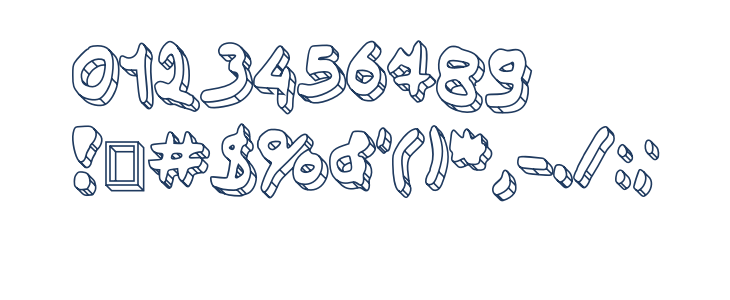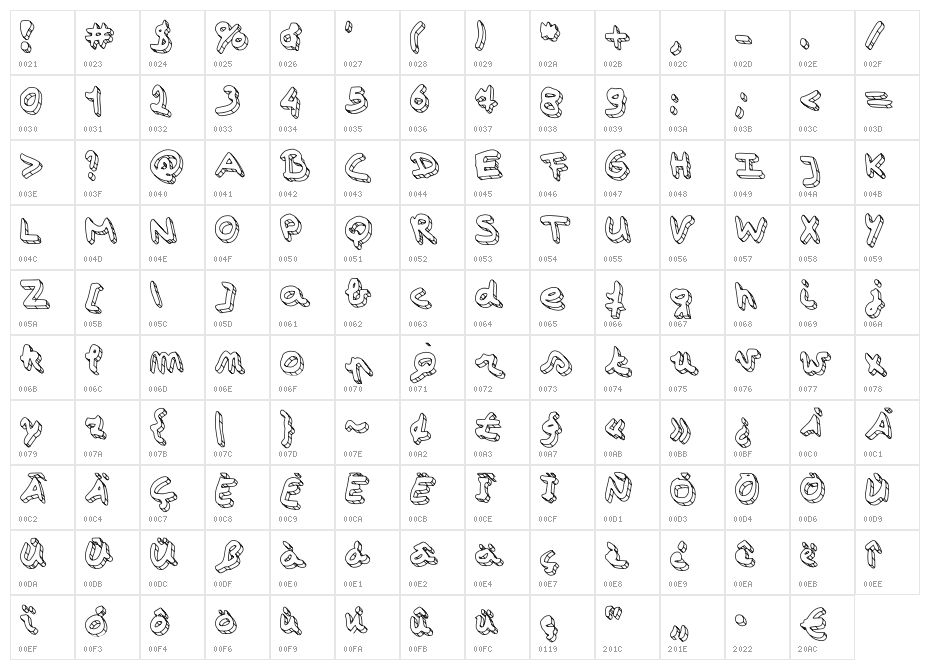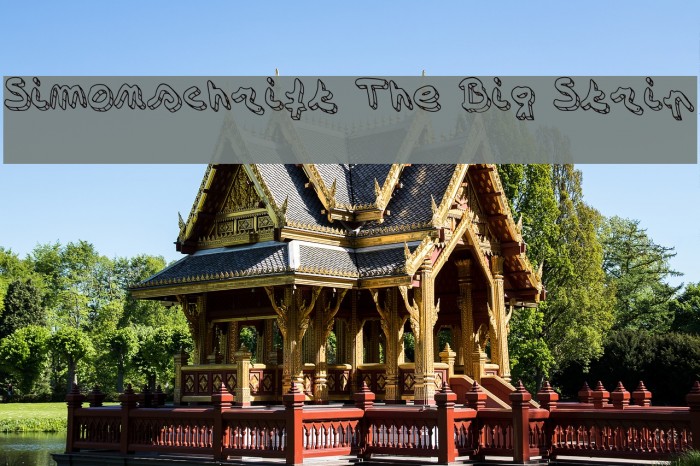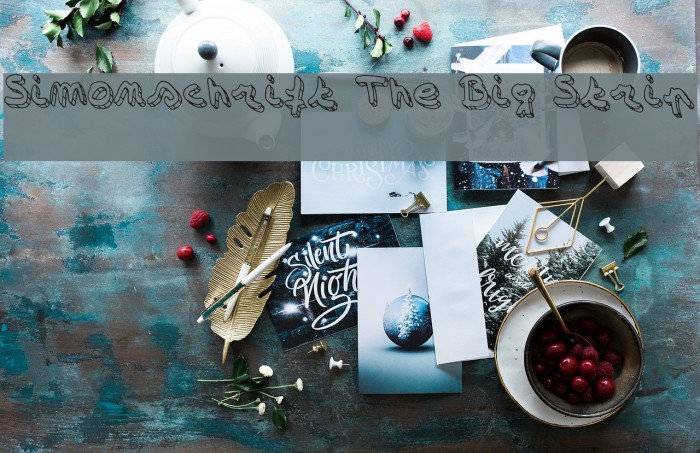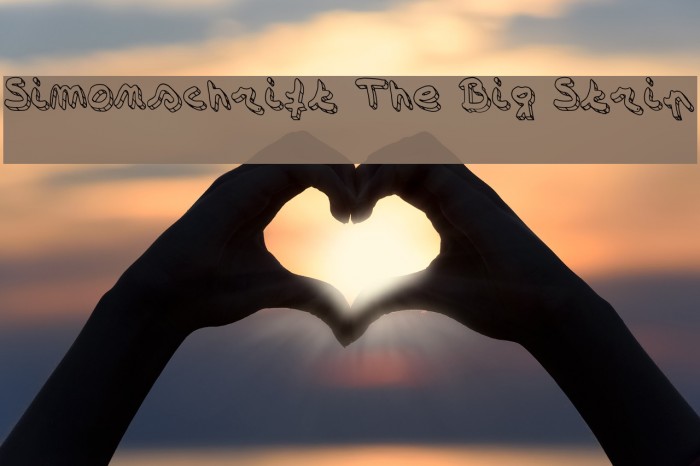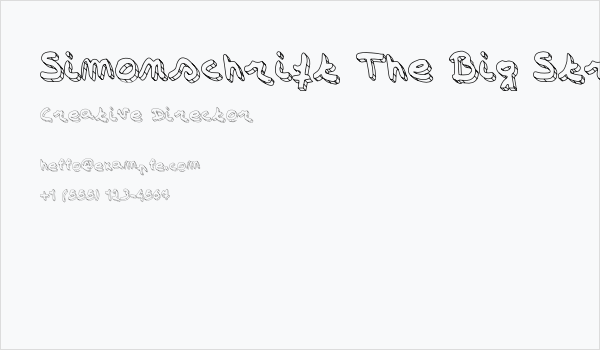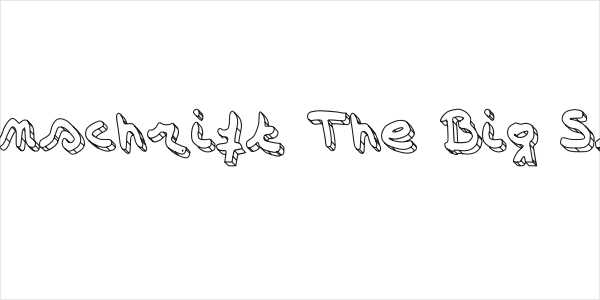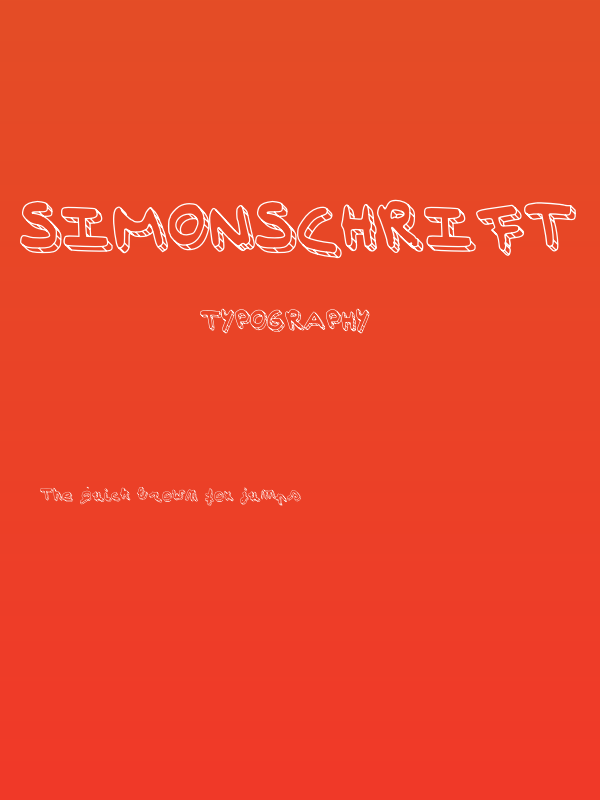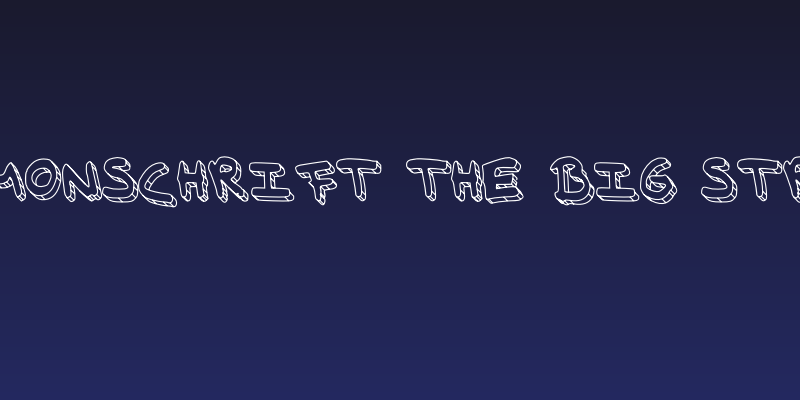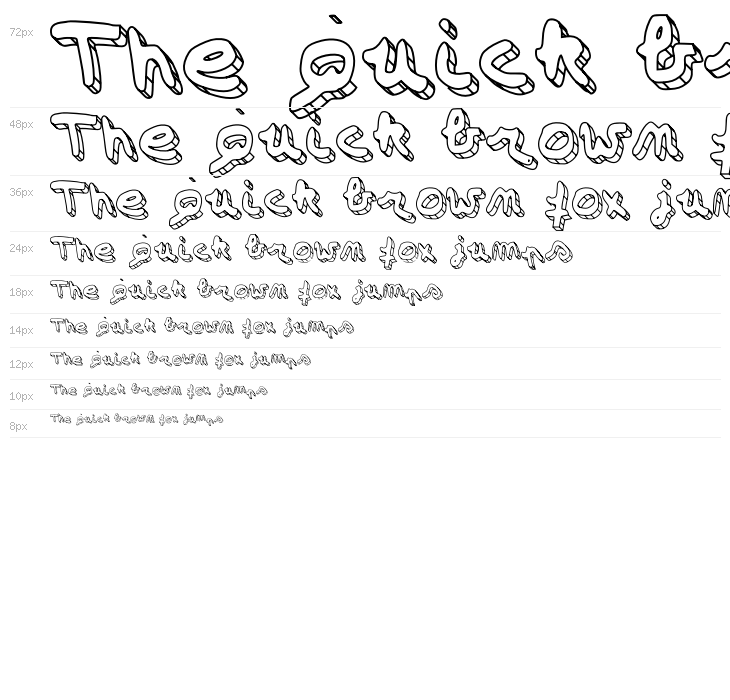
Simonschrift The Big Strip Font
Simonschrift The Big Strip Description
This font features a playful and bold 3D effect, with each character appearing as if it is constructed from strips of material. The letters have a hand-drawn, cartoonish style, with a consistent shadow effect that gives them depth and a sense of movement. The uppercase and lowercase letters maintain a uniform style, while the numbers and special characters follow the same design principles, ensuring a cohesive look across all elements. The font's unique appearance makes it stand out, offering a fun and whimsical aesthetic that is both eye-catching and memorable.